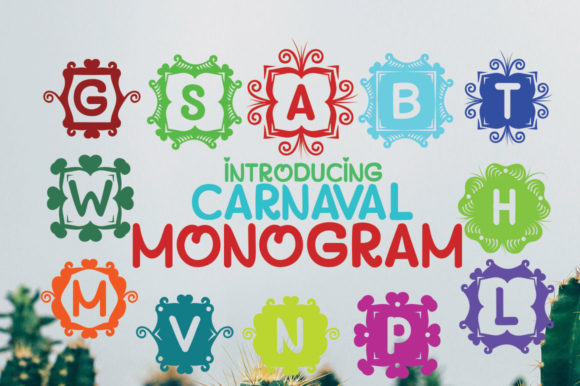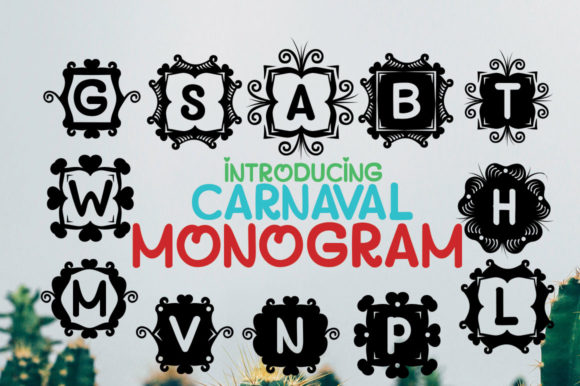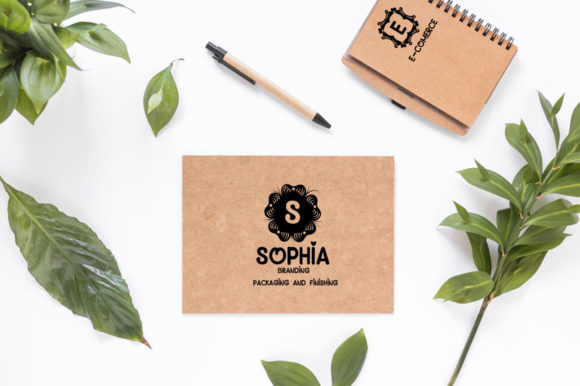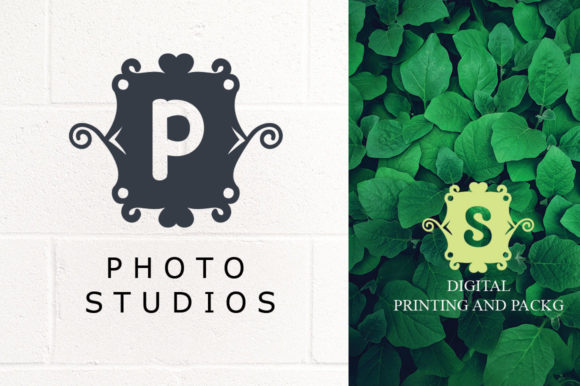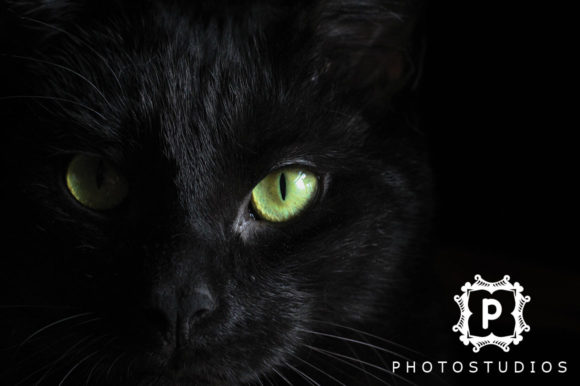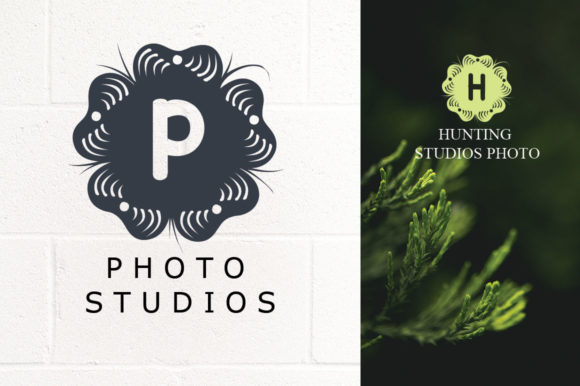
Introduction to Monogram Carnaval Font
Have you ever found yourself scrolling through design inspiration boards, searching for that perfect font to elevate your next creative project? The moment you stumble upon a stunning display font can be a game-changer, and for designers, having access to high-quality fonts like the Monogram Carnaval Font can make all the difference.
This charming and playful display font boasts iconic boxed letters that are sure to turn any design project into a true standout. With its unique style and versatility, the Monogram Carnaval Font is an invaluable resource for designers looking to add a touch of whimsy and personality to their work. Whether you’re working on a commercial project or a personal creative endeavor, this free download is a must-have in your design arsenal.
With a transparent background, the Monogram Carnaval Font is easy to layer and manipulate, making it a valuable addition to any design resource library. In this article, we’ll delve into the world of this delightful font and explore its many uses and applications.
Key Features of Monogram Carnaval Font
- Unique and playful design, ideal for creative projects and festive themes.
- High-quality font with a transparent background, perfect for use on various design resources.
- Each monogram is carefully crafted to maintain a consistent resolution of 300 DPI, ensuring crisp and clear visuals.
- Monogram Carnaval Font is an excellent design resource for anyone working on a project that requires a touch of elegance and sophistication.
- Can be easily customized and resized to fit various design requirements, making it a versatile and essential tool for any creative project.
Honest Review: Monogram Carnaval Font
I recently stumbled upon the Monogram Carnaval Font and was immediately drawn to its vibrant and playful aesthetic. As a designer, I appreciate high-quality design resources that can elevate a creative project. This font definitely fits the bill.
- What works well: ✨ The font’s versatility and unique design elements make it perfect for a variety of projects, from party invitations to branding materials. Its transparent background also allows for seamless integration with other design elements.
- What works well: ✨ The font’s bold and colorful style is sure to grab attention and add a festive touch to any design.
While the Monogram Carnaval Font is a fantastic addition to any designer’s toolkit, there are a few limitations to consider. ⚠️ The font may not be suitable for all types of projects, particularly those requiring a more subdued or professional tone.
Overall, I’m impressed with the Monogram Carnaval Font and would definitely recommend it to designers looking for a fun and creative design resource. With its high-quality design and free download option, it’s a great addition to any design library.
Monogram Carnaval Font
For the most out of the Monogram Carnaval Font, use it in conjunction with bold and bright colors to create a lively and festive design. Common use cases include party invitations, event branding, and social media graphics. The font’s unique design makes it perfect for adding a touch of whimsy and creativity to any project.